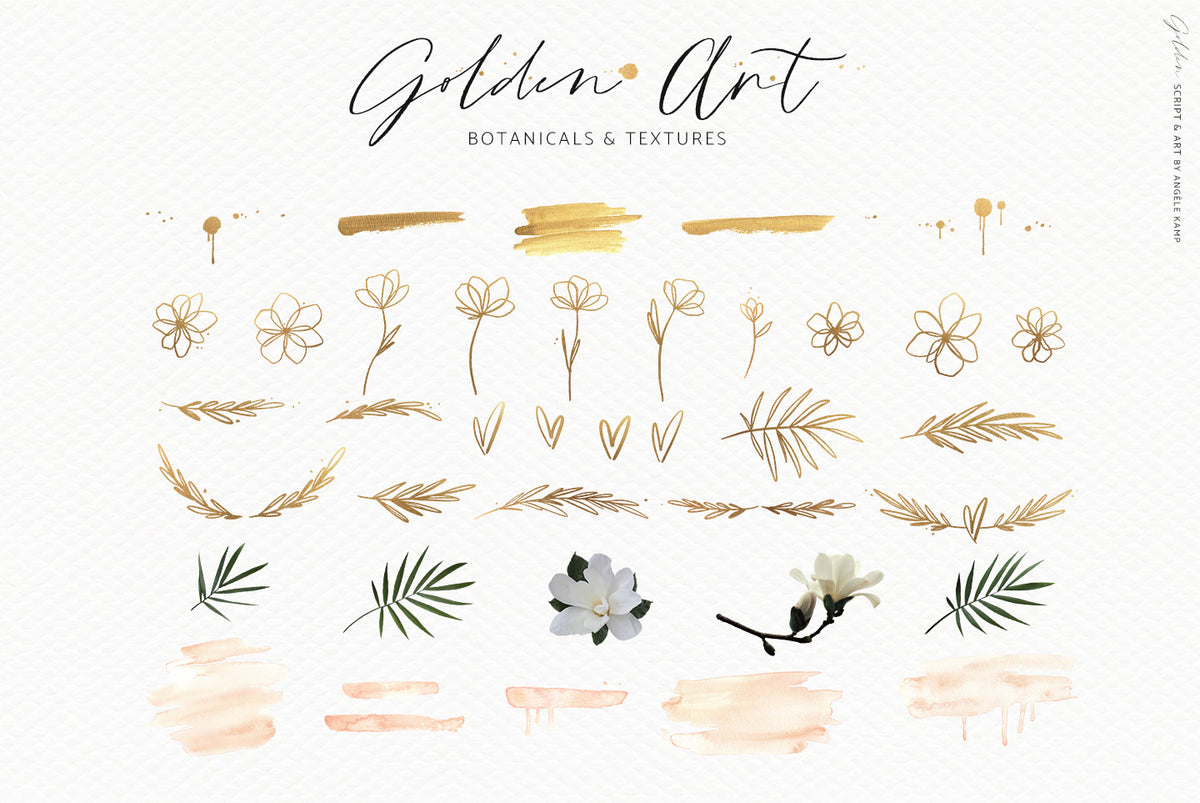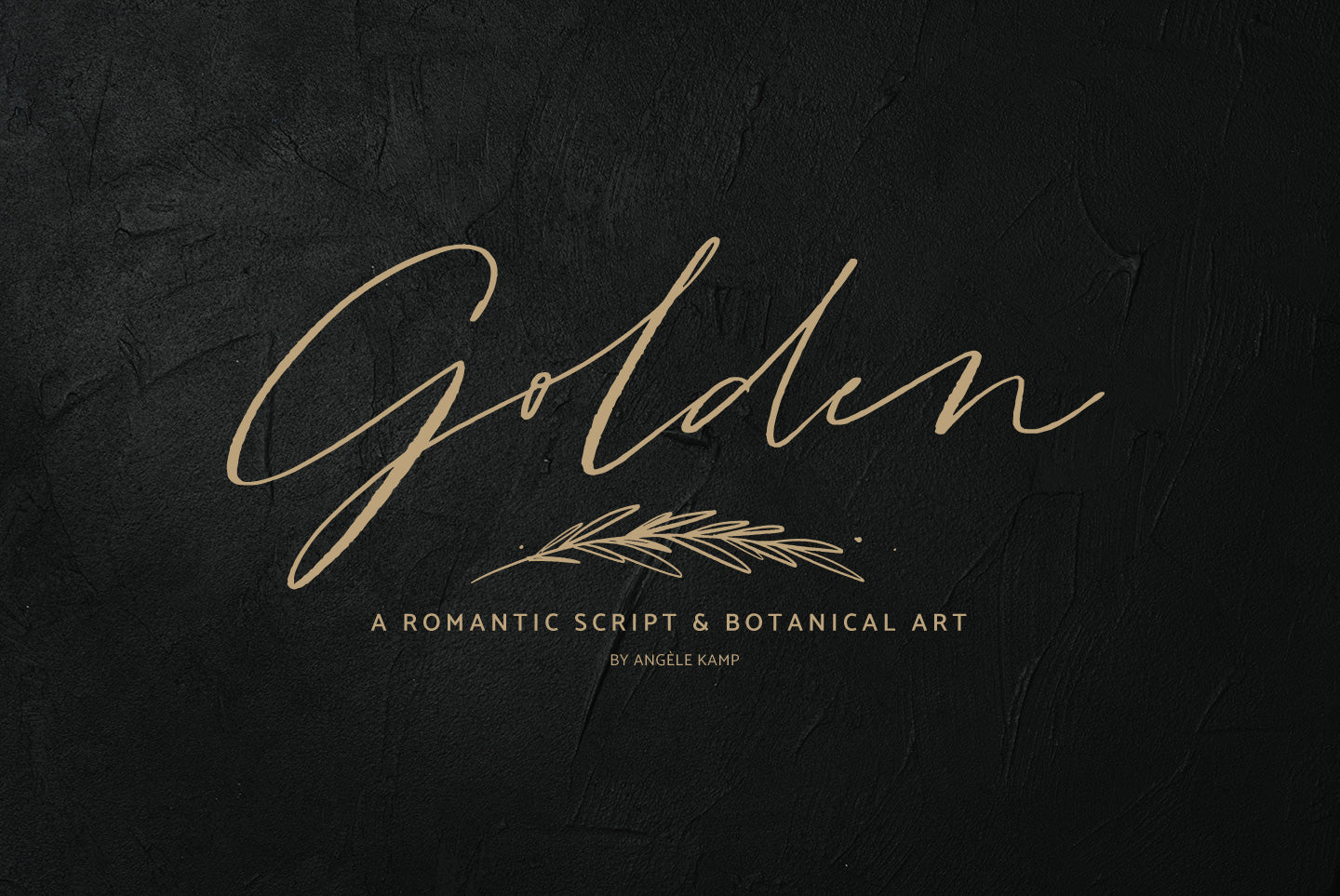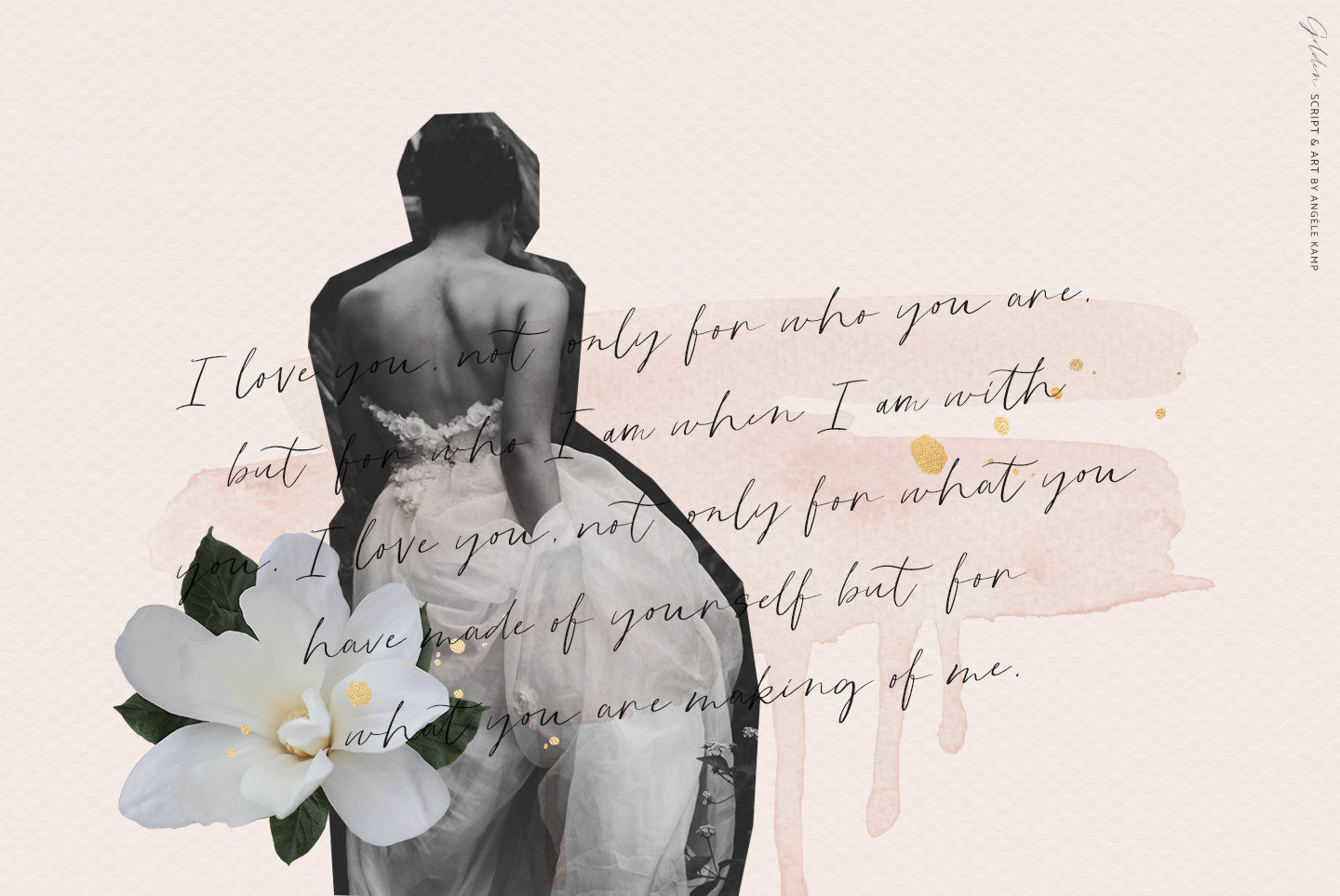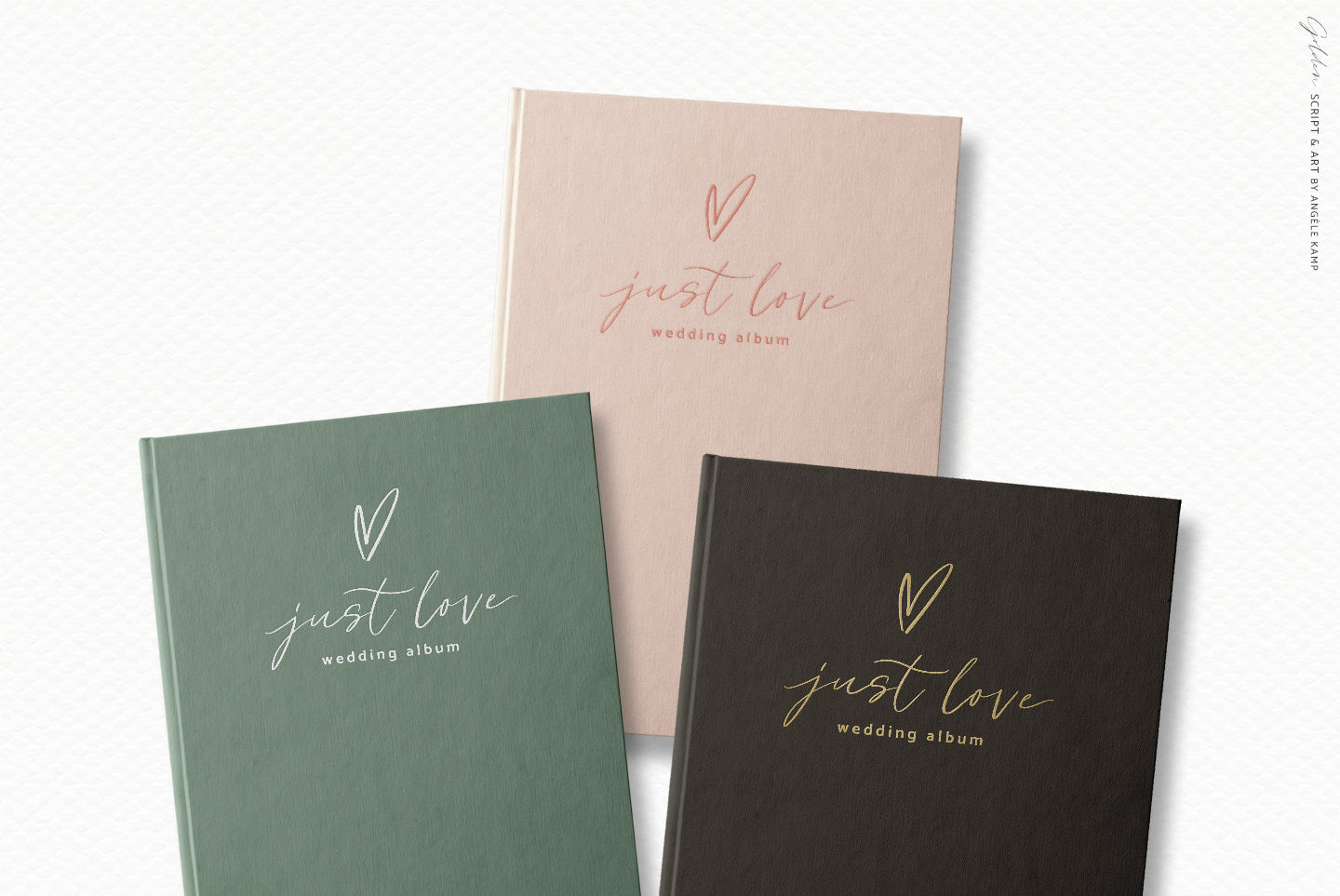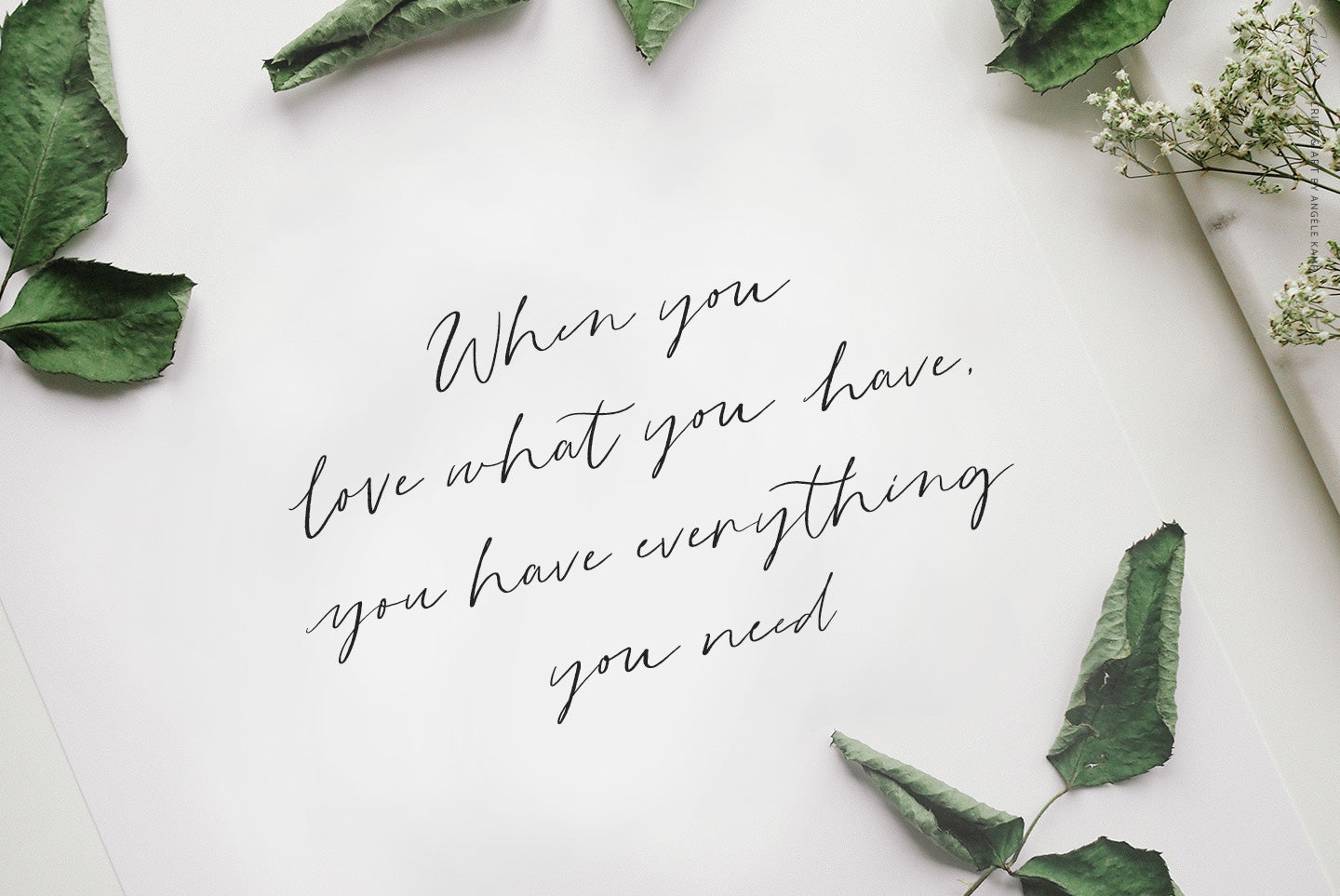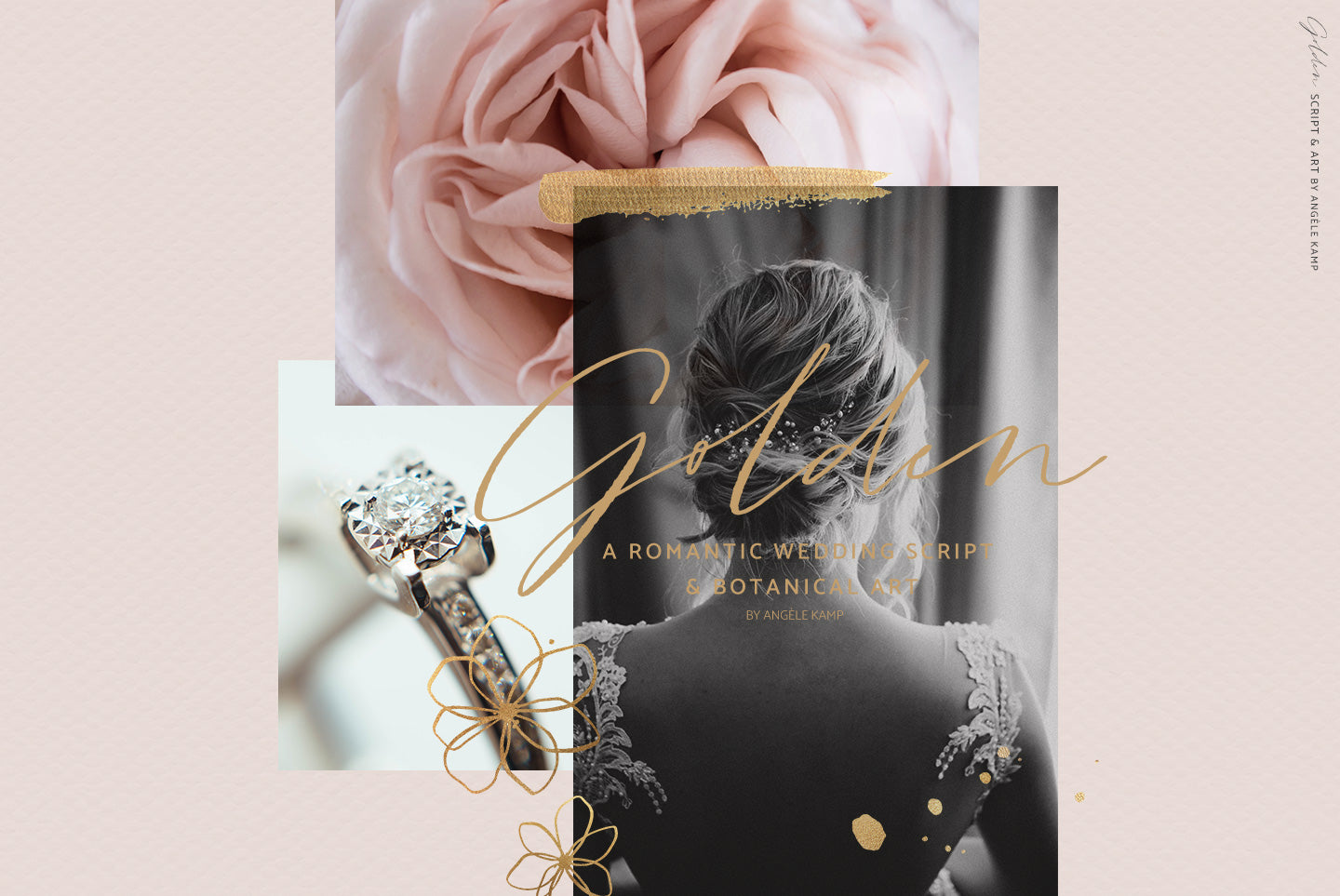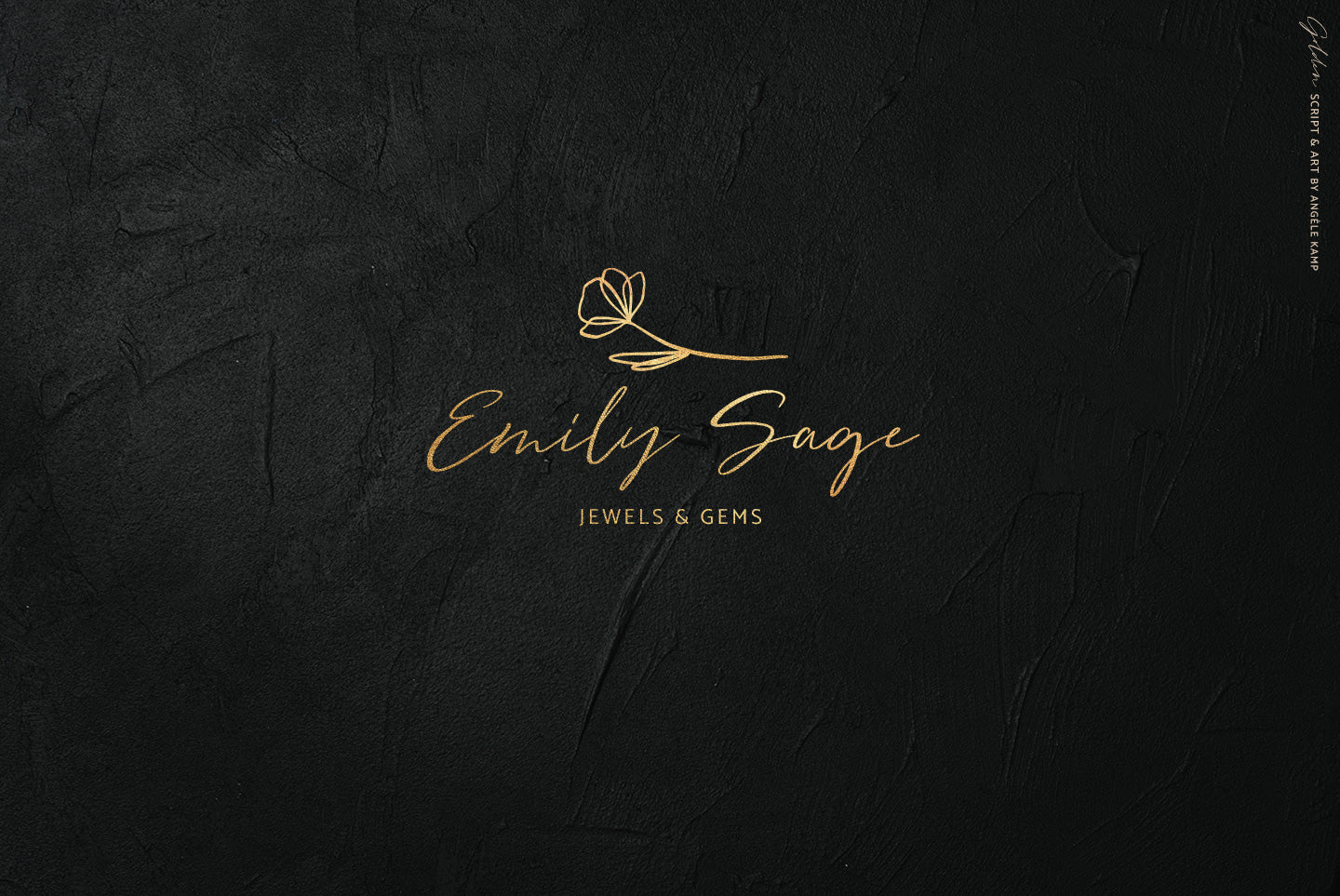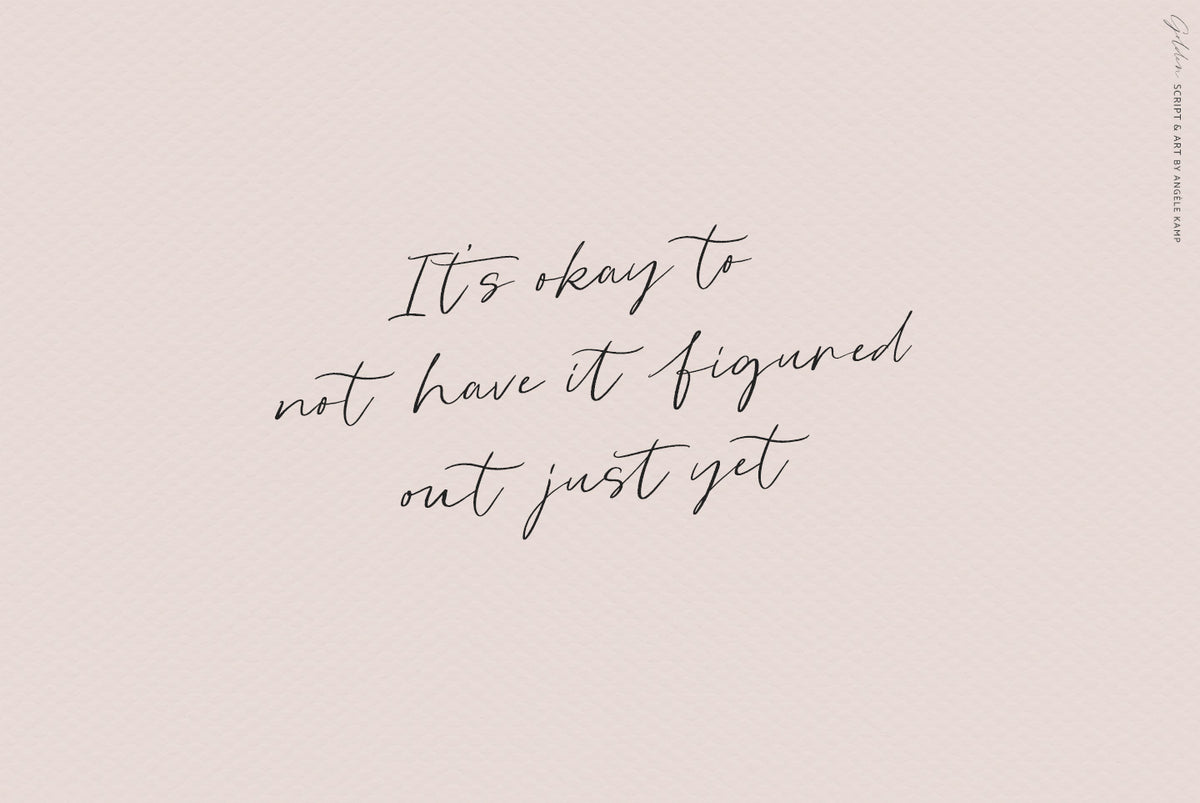
Golden font
Golden is a stunning collection of a romantic script & botanical art. Use this collection to create the most gorgeous wedding designs, mood boards, invites, wall art & branding designs.
- This font does not come in a gold color but in a solid black. I have included the gold texture so you can create your own gold text. Find a tutorial here https://youtu.be/0qUkiZUHdLg